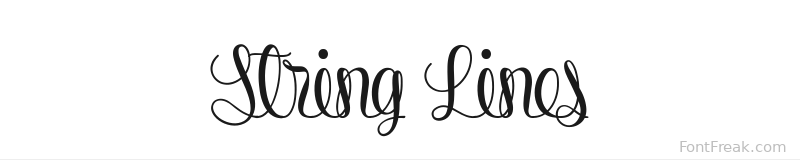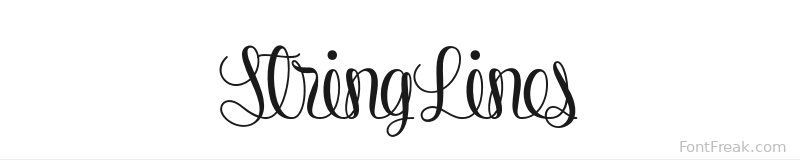
String Lines
About String Lines
String Lines by Mans Greback is a captivating display font that falls into the decorative category, designed to add a whimsical touch to any project. This font features a unique combination of flowing lines and playful curves, creating a sense of movement and energy. The stroke weight is consistent, with a gentle contrast that enhances its legibility while maintaining an artistic flair. The spacing between the characters is thoughtfully arranged, allowing for harmonious text layouts that draw the eye without overwhelming the reader.
Ideal for various creative applications, String Lines shines in contexts like wedding invitations, where its elegant yet casual style can evoke a sense of joy and celebration. It also works wonderfully for movie posters, providing a distinctive visual element that captures attention and conveys the film's theme. Restaurant menus can benefit from its inviting character, making the dining experience feel more personalized and engaging. Additionally, content creators can leverage this font for social media graphics, infusing their posts with a playful charm that resonates with their audience.
What sets the String Lines font apart is its ability to blend artistic expression with practicality. The font's lively design ensures that it stands out in a crowded marketplace, making it a perfect choice for anyone looking to inject creativity into their work. With the String Lines font free download, you can elevate your projects and capture the essence of fun and sophistication in your typography.